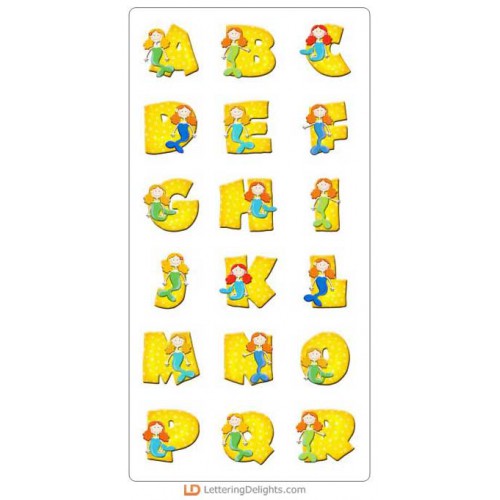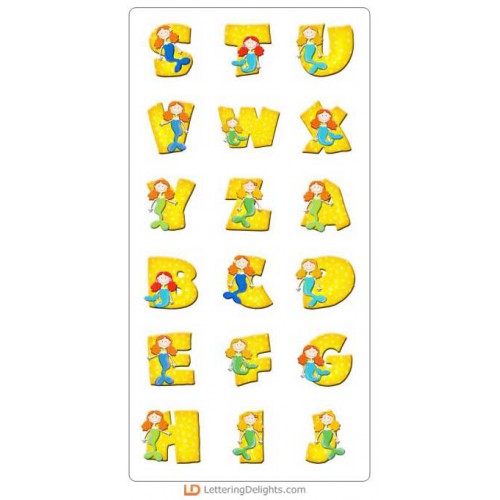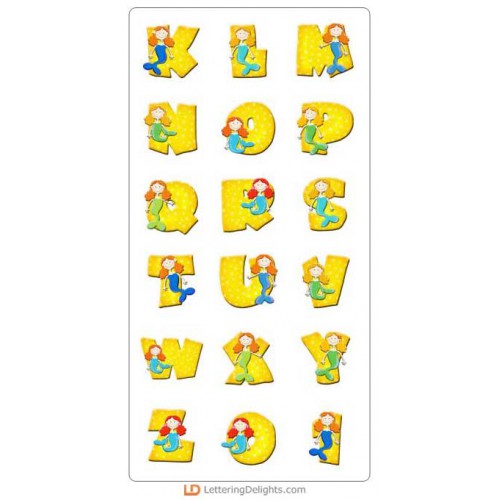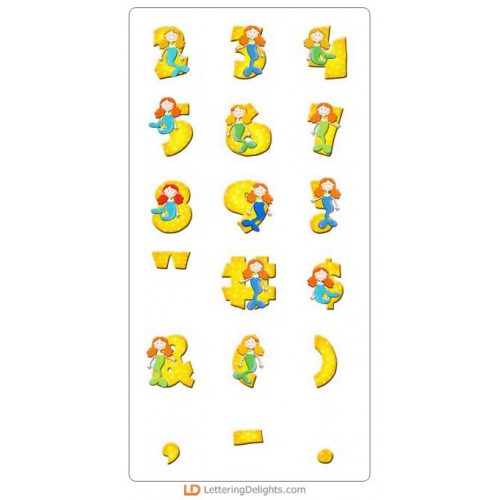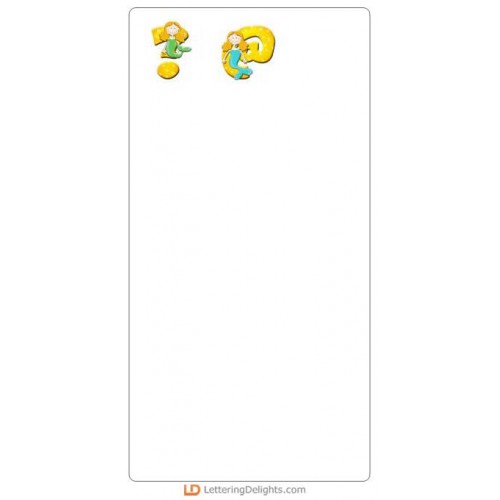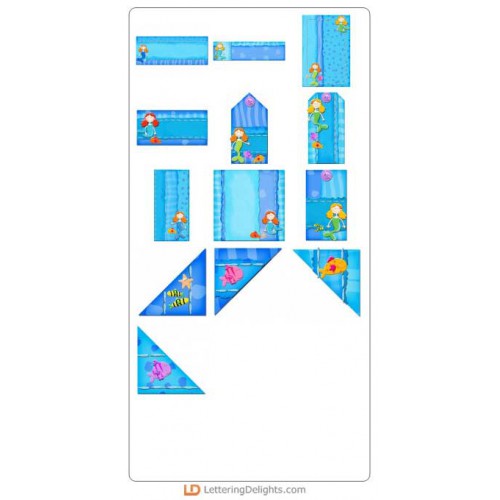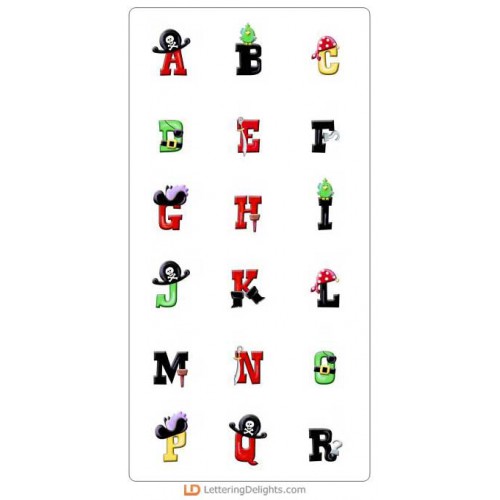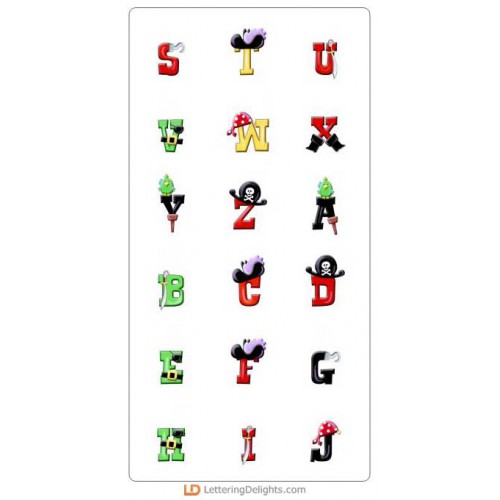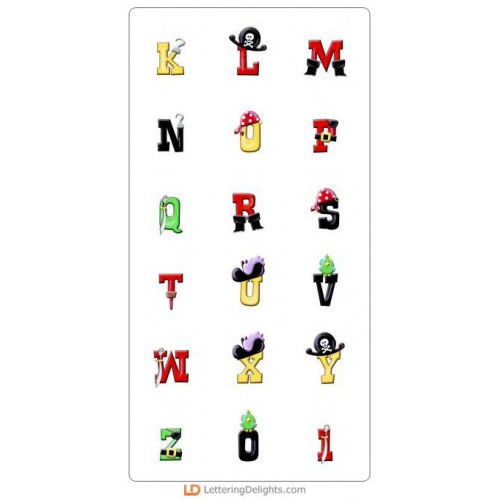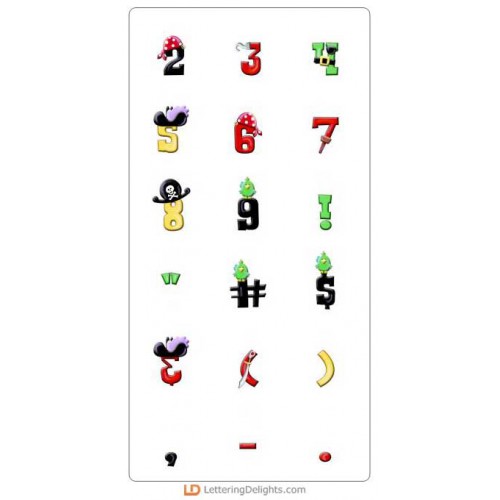
LDJ Ahoy Matey Bundle
Ahoy ye scurvy dogs & scalliwags! Think of the fun you could have with this pirate-themed bundle of journaling images, alphabets, and fonts. It's perfect for party invitations, newsletters, bulletin boards, flyers, and of course scrapbooking.